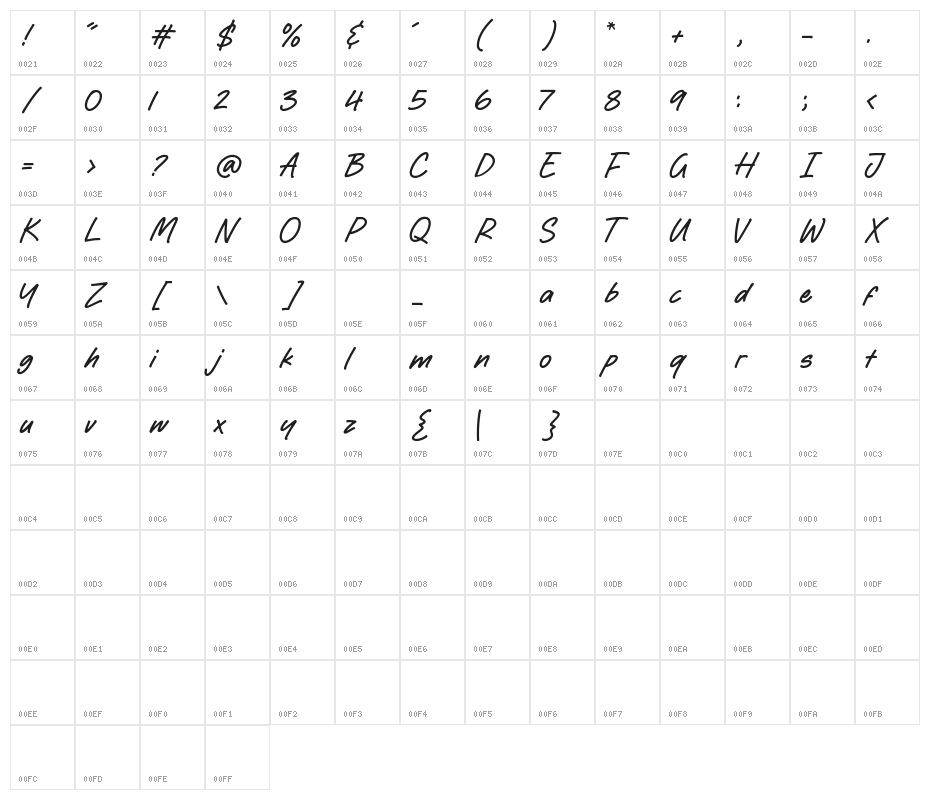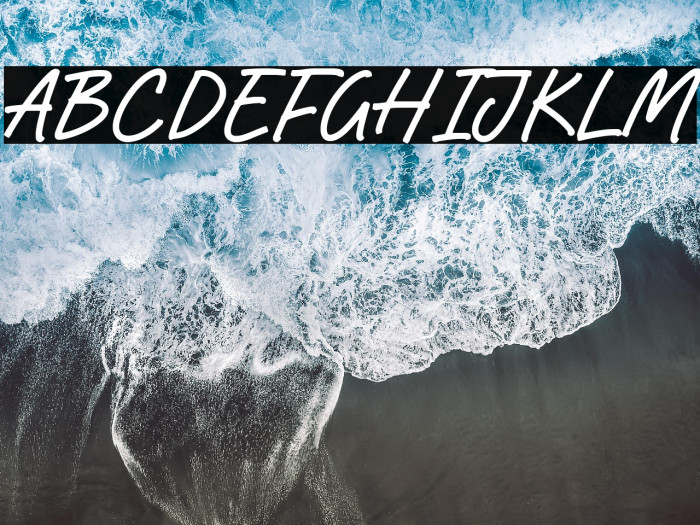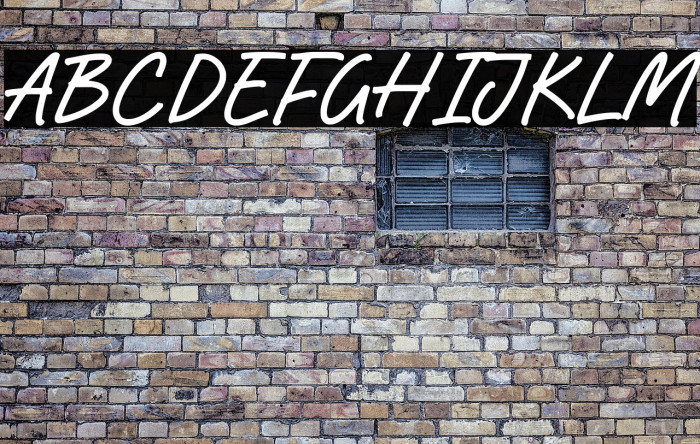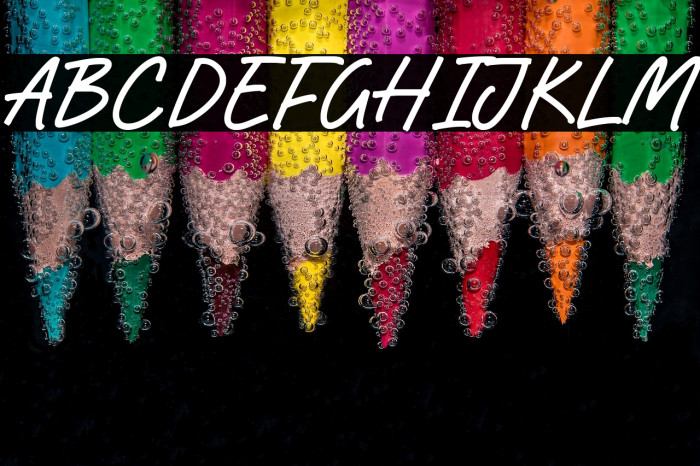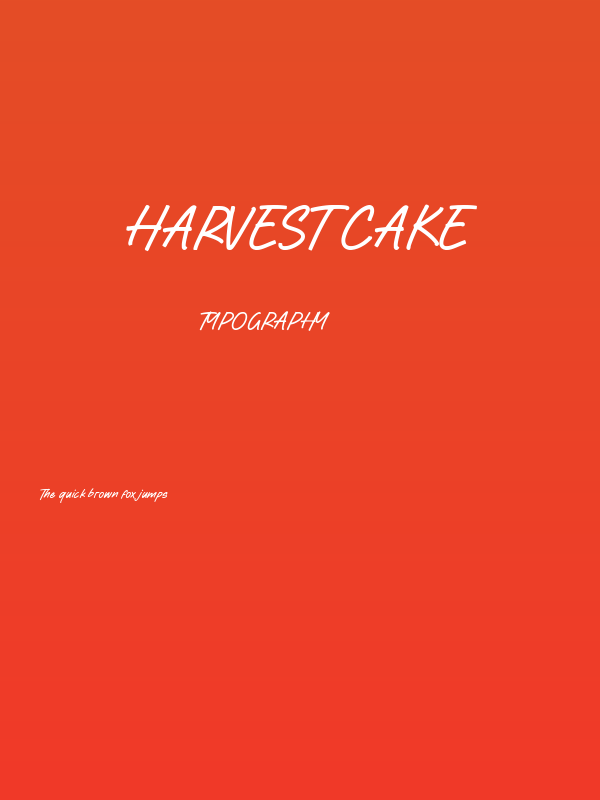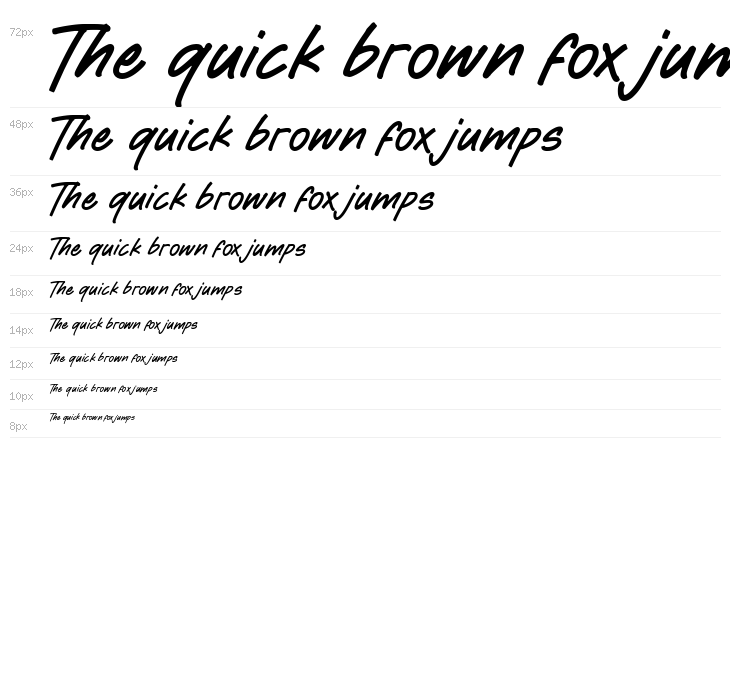
Harvest Cake Font
Harvest Cake Description
A casual, handwritten script font with smooth, flowing strokes and a natural, informal appearance. The characters are slightly slanted, mimicking natural handwriting with consistent stroke thickness and rounded terminals.
| Overall Style | Casual, Handwritten, Informal |
| Use Case | Logos, Headlines, Short text, Personal notes |
| Proposed Projects | Greeting cards, invitations, personal branding, quotes, social media graphics. |